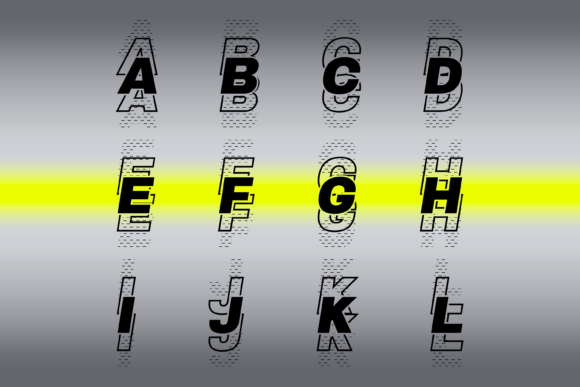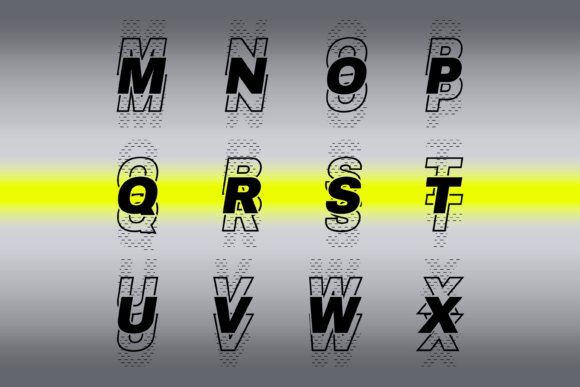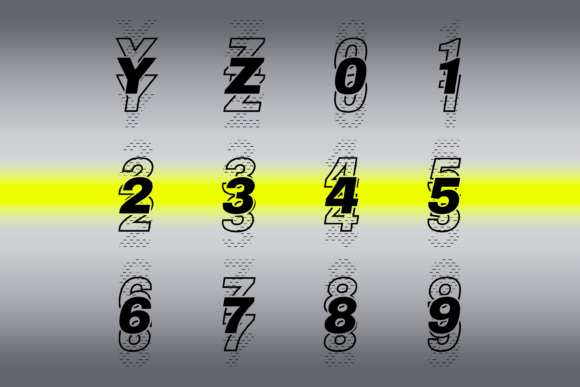
Introduction to Fader Font
Have you ever been working on a creative project, pouring your heart and soul into it, and suddenly, you need that one perfect element to bring it all together? For many designers, that element is the perfect font. And when it comes to fonts, one name stands out: Fader Font. This incredibly cool font is a game-changer, and in this article, we’ll explore why.
Fader Font is more than just a design resource – it’s a high-quality tool that can elevate your creative project to the next level. Whether you’re working on a DIY craft or a professional design, this font is sure to impress. And the best part? It’s available for a free download, making it accessible to designers of all levels.
- Unique characteristic: Fader Font features a subtle, gradient-like effect that adds depth and visual interest to designs
Honest Review: Fader Font
As a designer, I’m always on the lookout for high-quality design resources to elevate my creative projects. Recently, I had the chance to experiment with the Fader Font, and I’m excited to share my thoughts.
- ✨ High-quality design: The Fader Font is incredibly detailed and has a unique, modern aesthetic that’s perfect for any design project.
- ✨ Versatile: The Fader Font is suitable for a wide range of creative projects, from graphic design to digital art.
- ⚠️ Limited customization options: While the font is high-quality, it’s not entirely customizable, which might be a drawback for some designers.
- ⚠️ Not ideal for complex designs: Due to its modern aesthetic, the Fader Font might not be the best choice for complex designs that require a more traditional look.
Overall, I’m impressed with the Fader Font’s quality and versatility. While it may have some limitations, it’s an excellent addition to any designer’s toolkit, and I’d definitely recommend it for creative projects that require a modern, high-quality font.
Fader Font
Fader Font is a versatile and high-quality design resource ideal for various creative projects. It offers a transparent background, making it easy to integrate into your design.